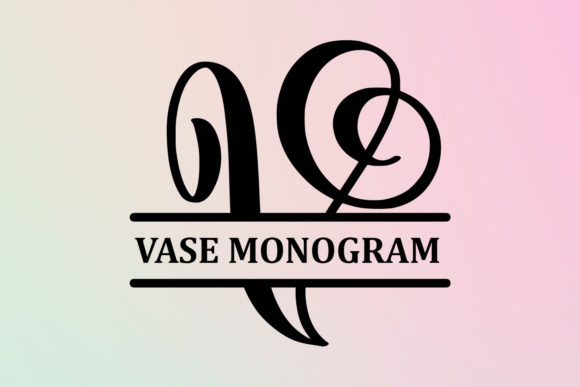
Step into a world of unparalleled artistry with Vase Monogram Font, the ultimate display font that captivates and compels like no other. Crafted with meticulous attention to detail by the visionary Abodaniel, this masterpiece transcends the boundaries of ordinary fonts, heralding a new era of creative expression.
With its bold and striking appearance, Vase Monogram Font commands attention like a magnet. Its elegant curves and sharp angles dance harmoniously, exuding an air of sophistication and confidence. Whether you're a seasoned crafter or embarking on your creative journey, this font will elevate your designs to new heights.
Unleash your imagination and let Vase Monogram Font ignite your passion for crafting. Transform mundane t-shirts into canvases of self-expression, where every stroke of the font tells a story. Create logos that resonate with power and purpose, leaving an indelible mark in the minds of your audience. Share inspiring quotes that uplift and motivate, rendered in Vase Monogram Font's bold and unwavering style.
The versatility of Vase Monogram Font extends beyond t-shirts and logos. It's the perfect companion for mugs, tote bags, cards, banners, social media posts, and any creative endeavor you can dream up. Its versatility knows no bounds, allowing you to weave it seamlessly into your crafting projects, adding a touch of elegance and individuality that sets your work apart.
With Vase Monogram Font, you're not just downloading a font; you're embracing a lifestyle of creativity and self-expression. Its bold character and captivating presence will inspire you to create designs that speak volumes, leaving a lasting impression wherever they are displayed. Seize this opportunity to add Vase Monogram Font to your collection and unlock a world of limitless creative possibilities. Let your imagination soar and witness the transformative power of this extraordinary font.